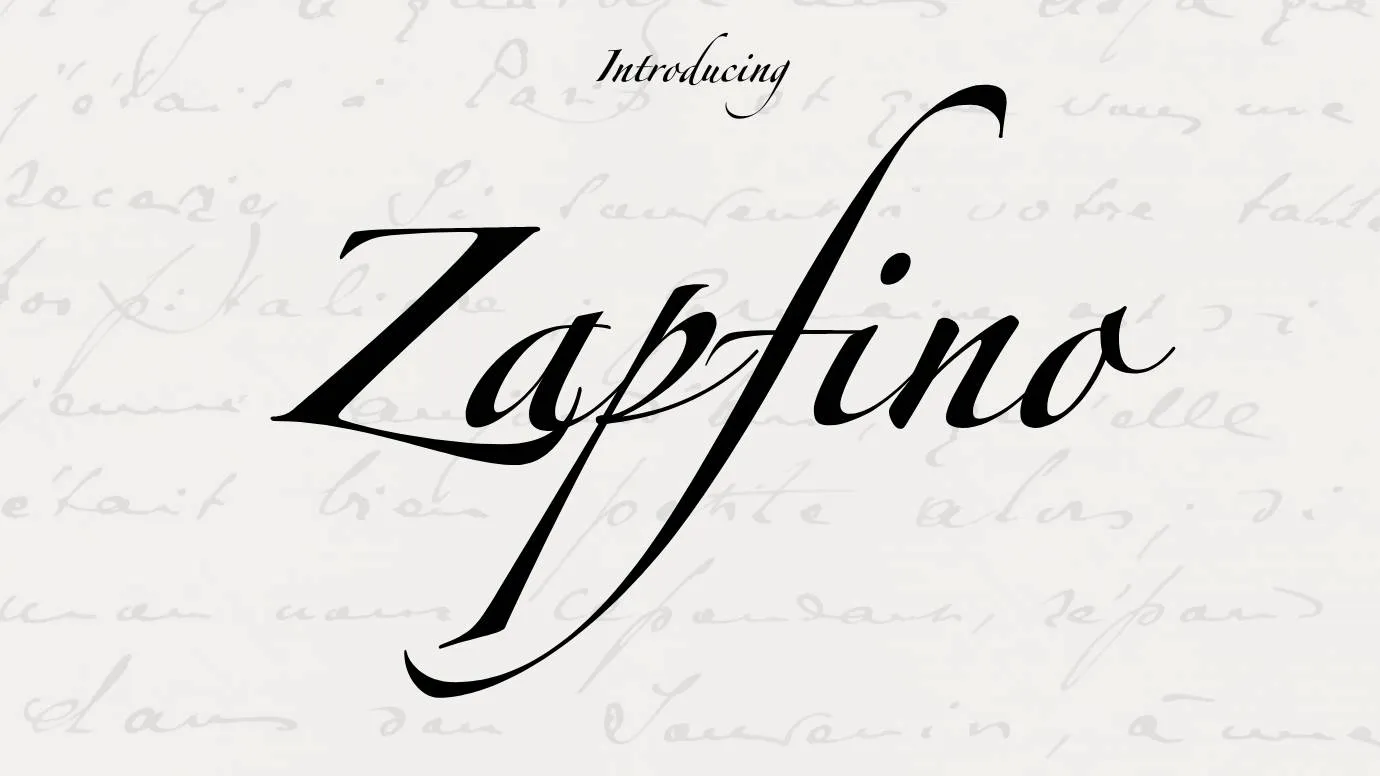
Zapfino Font Family is a calligraphy formal script font that was drafted by a German typeface designer, Hermann Zapf. He worked as a typeface designer for a long time.
Zapfino Font
NameZapfino Font
FoundryMergenthaler Linotype Company
Designer Hermann Zapf
TypeFormal script
Date Released1998